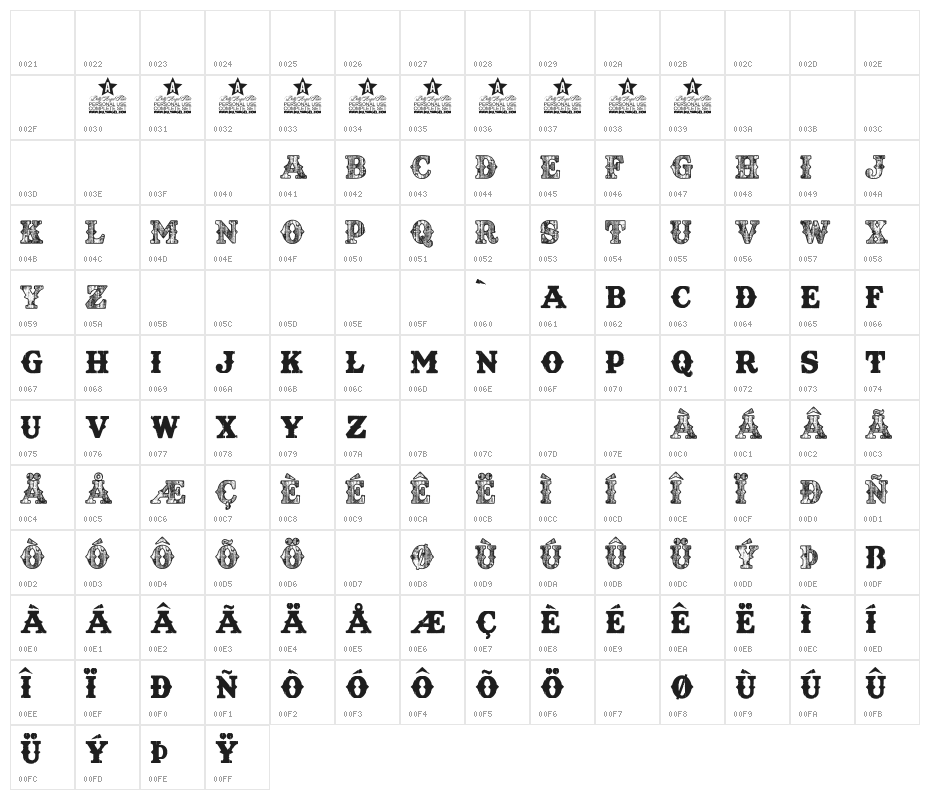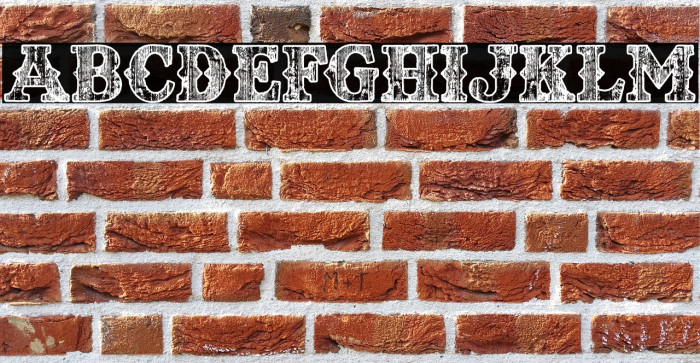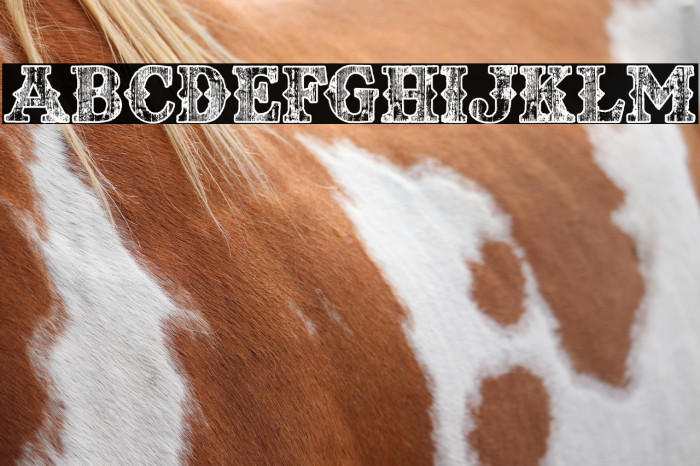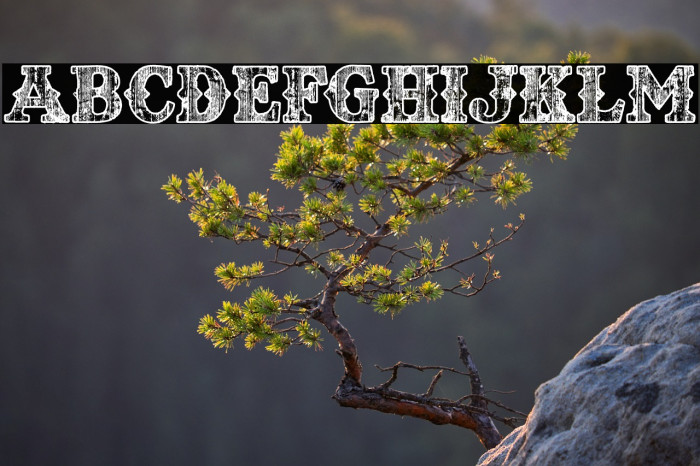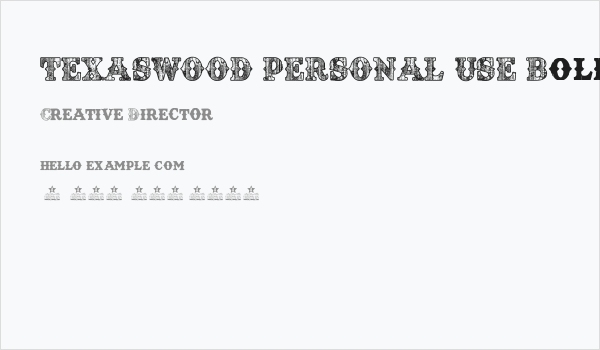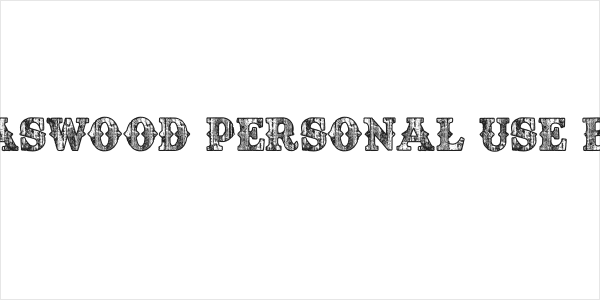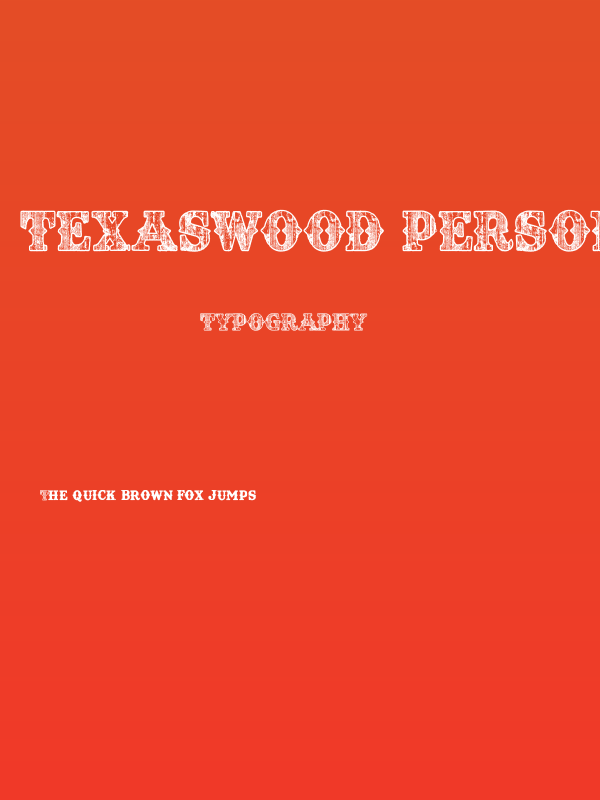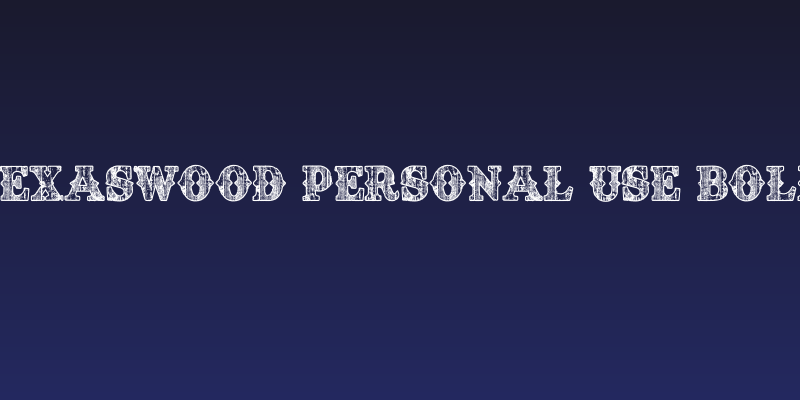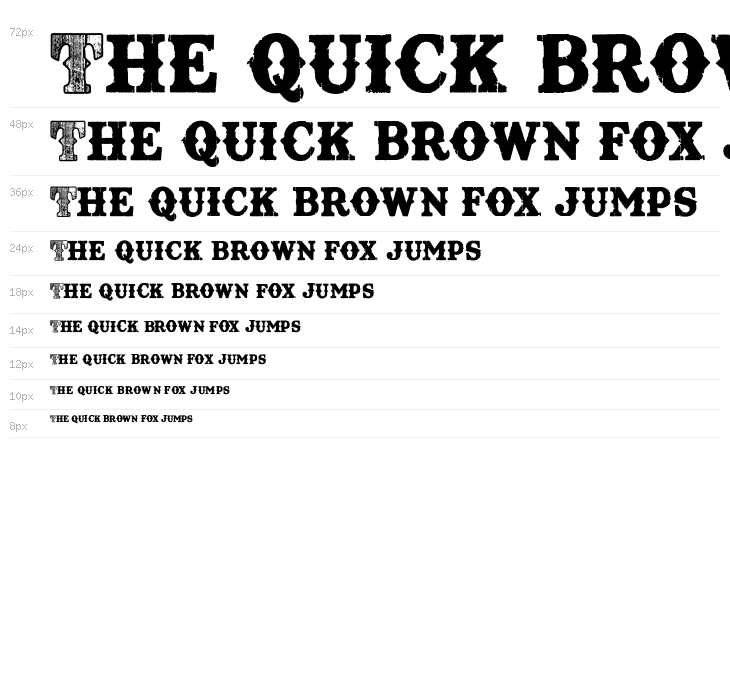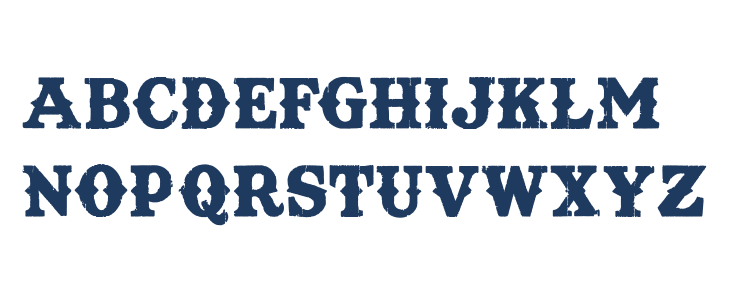
TEXASWOOD PERSONAL USE Bold Font
TEXASWOOD PERSONAL USE Bold Description
This font features a bold, decorative style with a distinct woodcut texture that gives it a rustic and vintage appeal. The uppercase letters are prominently designed with intricate patterns that mimic the appearance of wood grain, adding depth and character. The font's boldness makes it stand out, while the textured detailing provides a unique aesthetic that is both eye-catching and artistic. It is ideal for projects that require a touch of the outdoors or a handcrafted feel, such as posters, signage, or branding materials that aim to convey a sense of authenticity and tradition.
| Proposed Projects | Ideal for posters, signage, branding materials, and projects needing a rustic or handcrafted feel. |